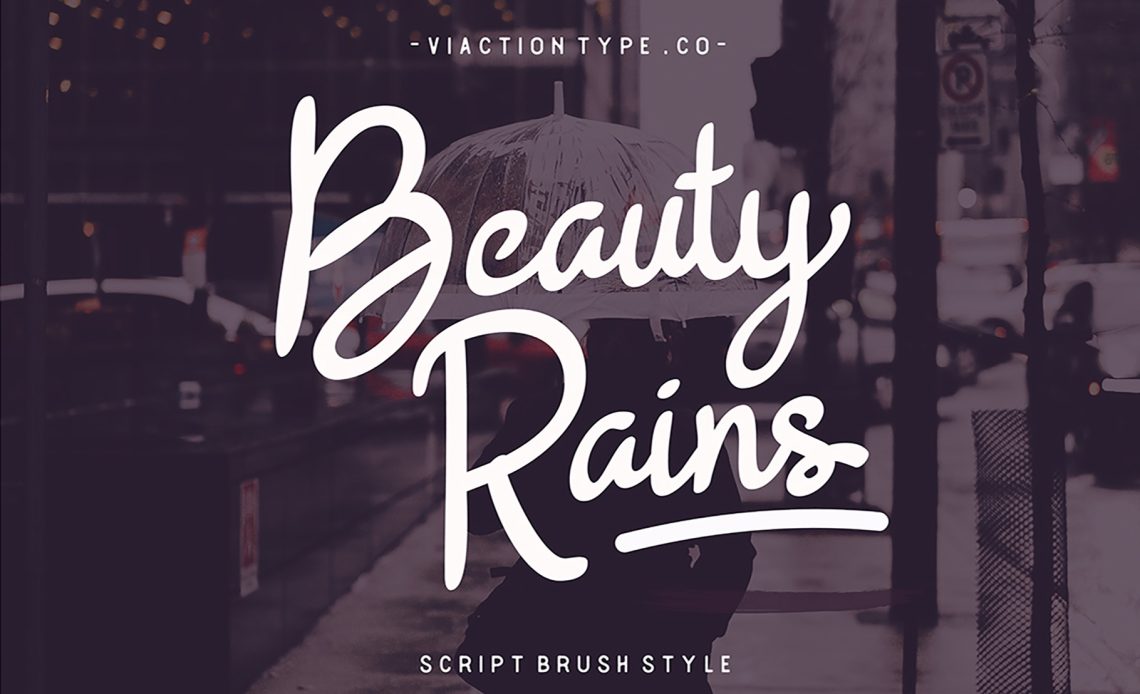
Looking for a font that captures the essence of creativity and style? Look no further than Beauty Rains Font, the stunning script font from Viaction Type.Co.
With its original handwriting brush style, Beauty Rains Font adds a natural and effortless charm to any design. Whether you're looking to elevate your boutique designs, add a touch of elegance to your photography layovers, create captivating magazine headlines, or add an inspiring quote to your business cards, Beauty Rains Font is the perfect choice.
The exquisite detailing and unique character of this font is sure to leave a lasting impression on anyone who sees it. The delicate strokes and curves of each letter create a stunning, handcrafted look that will elevate your designs to new heights. And with its versatile usage options, you can use it in a variety of contexts without ever sacrificing quality.
Beauty Rains Font is perfect for those who are looking for a font that is both beautiful and practical. It has been created with care and attention to detail, and its quality is evident in every aspect of its design. With its captivating and charming feel, it is sure to draw attention and leave a lasting impression on your audience.